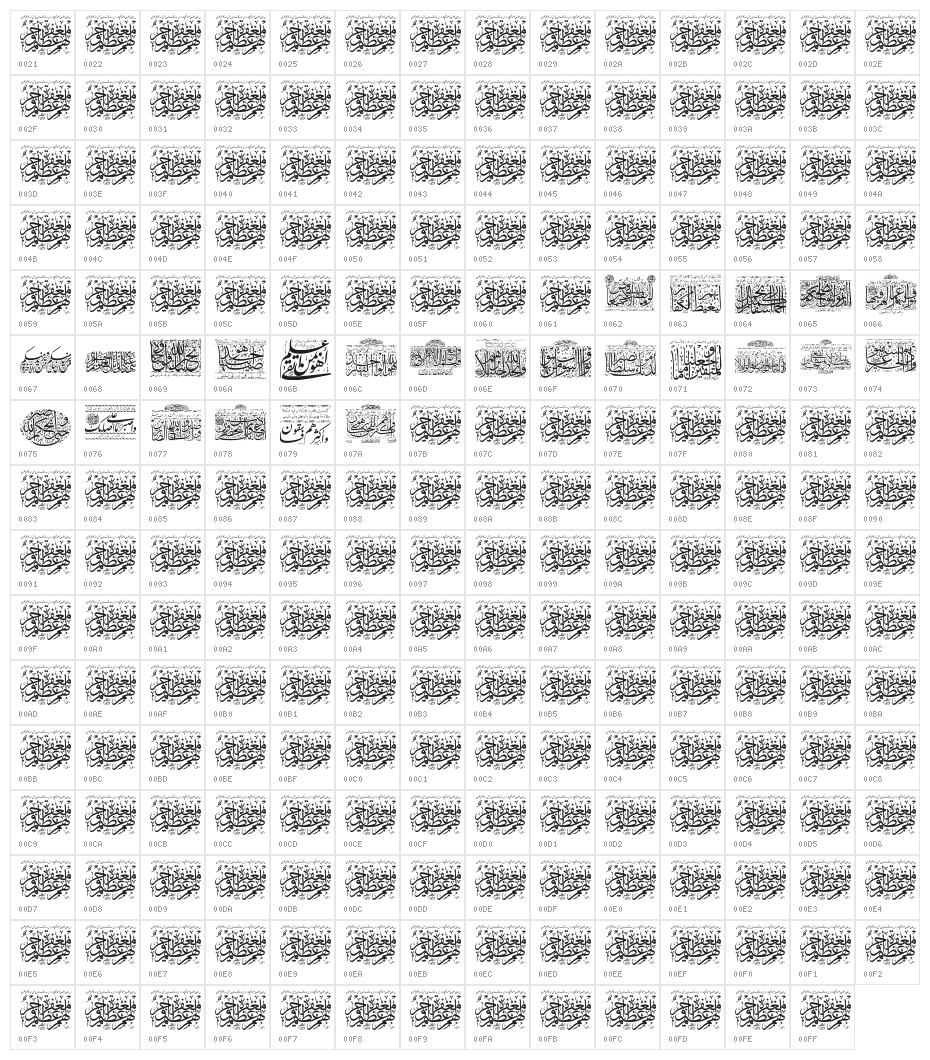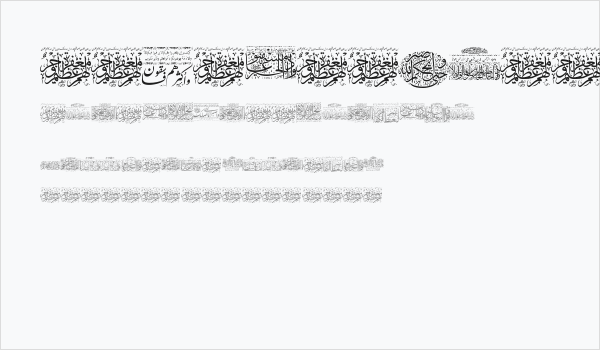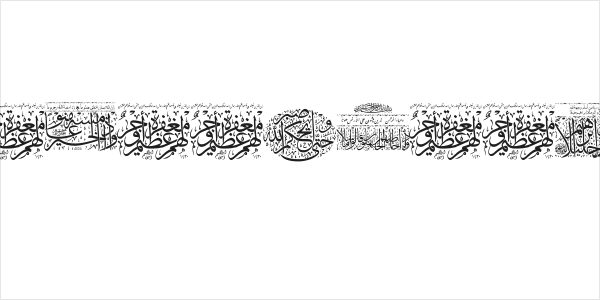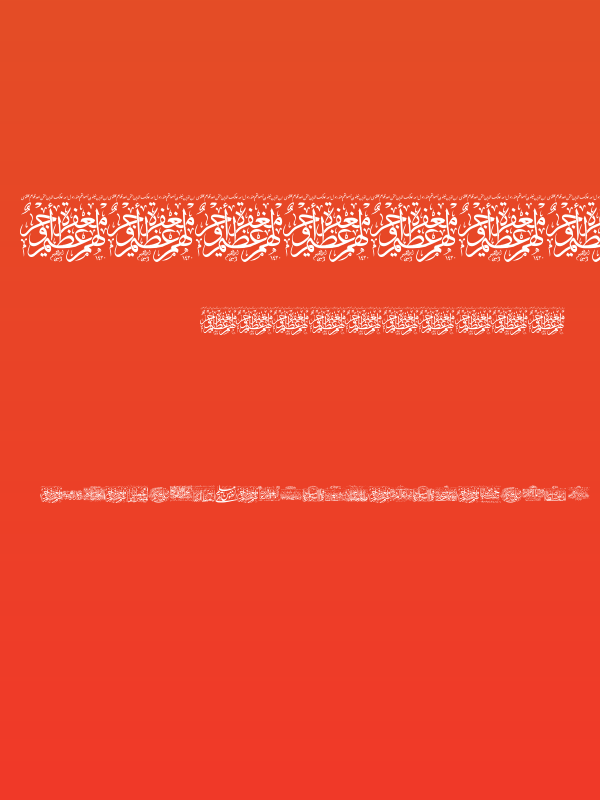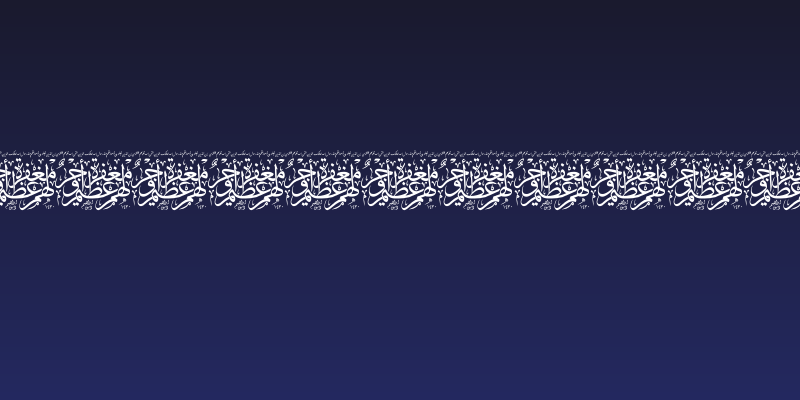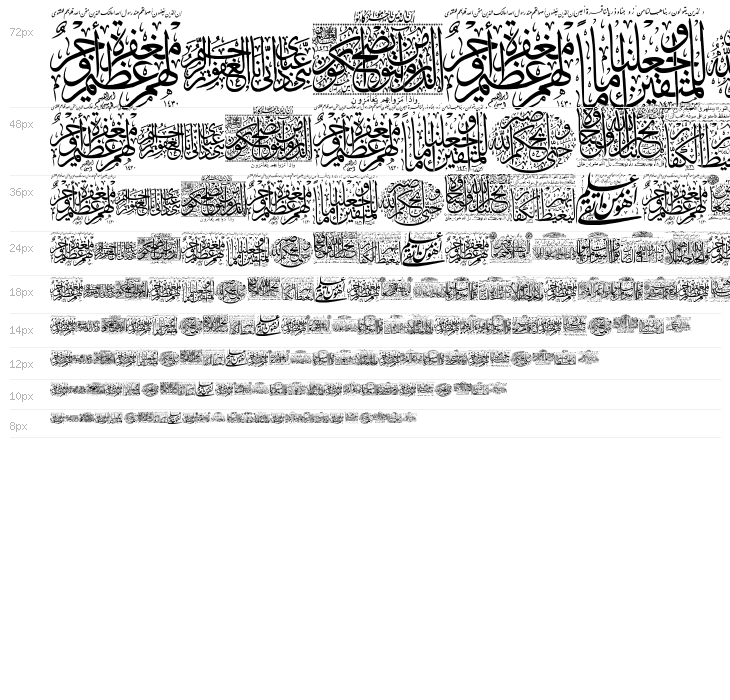
Aayat Quraan 29 Font
Aayat Quraan 29 Description
Highly ornate Arabic script with intricate detailing, featuring dense calligraphic forms and decorative flourishes, commonly used in religious or ceremonial contexts.
| Overall Style | Decorative, Traditional, Religious |
| Use Case | Religious manuscripts, decorative borders, ceremonial headings. |
| Proposed Projects | Religious texts, ceremonial documents, decorative art, Quranic manuscripts. |